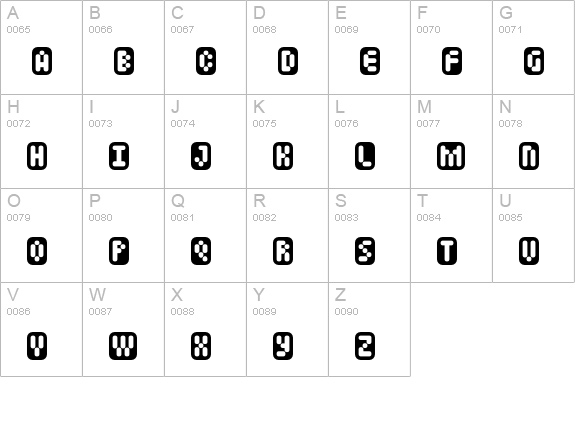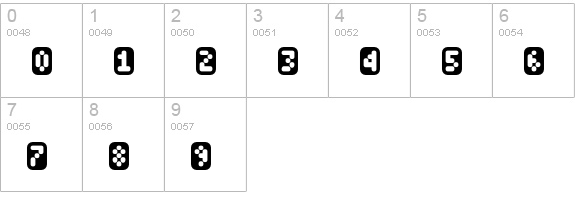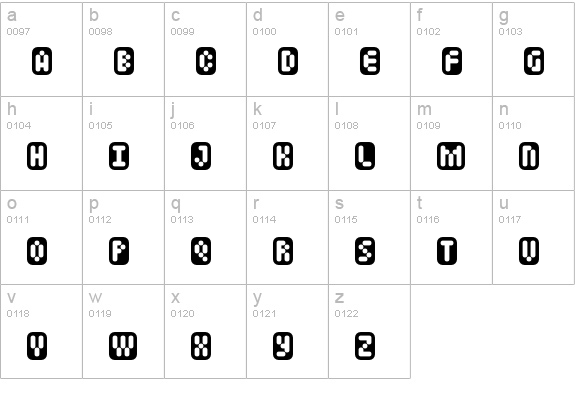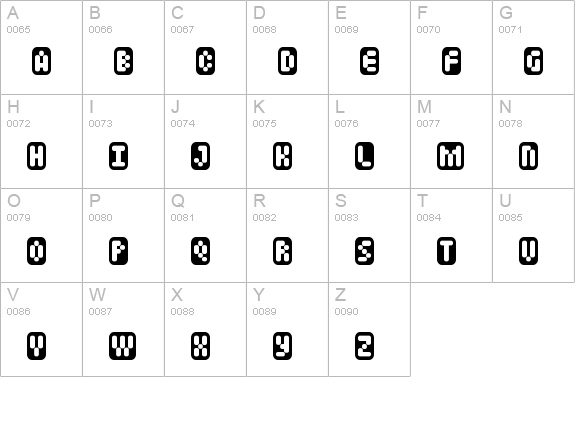
Mastertext-Boxed Font Details
Introducing Mastertext-Boxed Font, a stunning typeface that combines elegance and modernity in perfect harmony. With its sleek and sophisticated design, this font is the ideal choice for any project that requires a touch of professionalism and creativity. Mastertext-Boxed Font features clean lines and sharp edges, giving your text a bold and confident look. Whether you're designing a logo, creating a website, or crafting a stylish invitation, this font will make your words stand out and leave a lasting impression. But what truly sets Mastertext-Boxed Font apart is its versatility. From bold headlines to elegant body text, this font can handle it all with ease. Its carefully crafted letterforms ensure legibility and readability across various sizes and mediums, making it suitable for both print and digital projects. And the best part? Mastertext-Boxed Font is available for free download at FontsMarket.com! That's right, you can enhance your designs with this exceptional font without spending a dime. Simply visit FontsMarket.com, find Mastertext-Boxed Font, and start creating stunning visuals that will captivate your audience. Don't miss out on this incredible opportunity to elevate your design game. Download Mastertext-Boxed Font today and experience the seamless blend of style and functionality. Unleash your creativity and make a statement with this remarkable typeface.